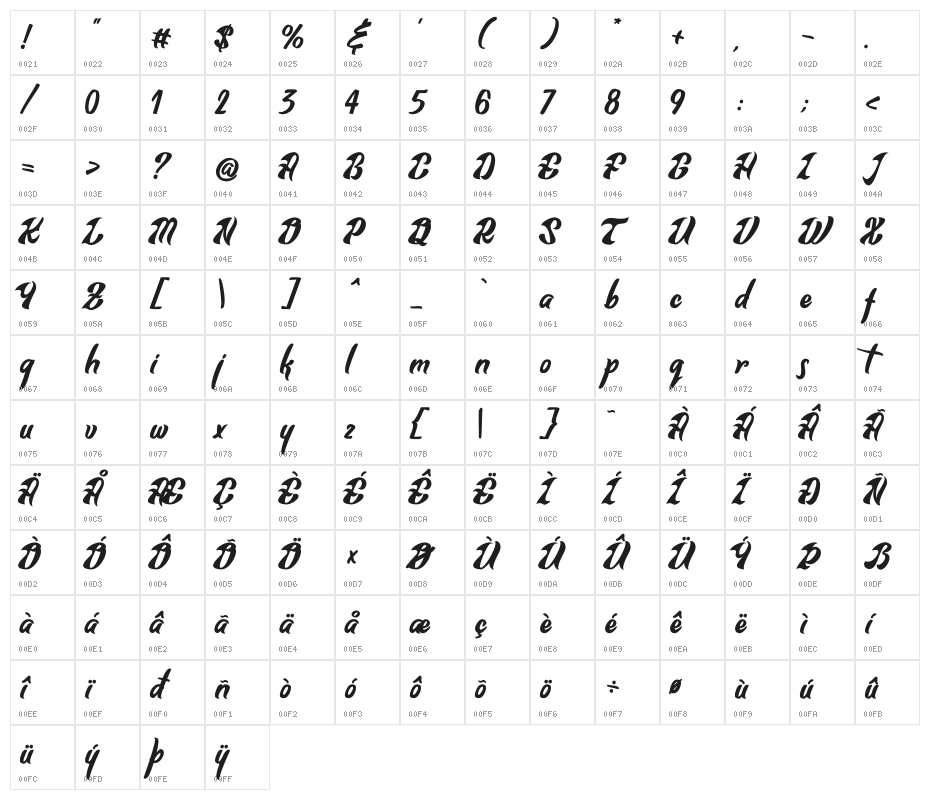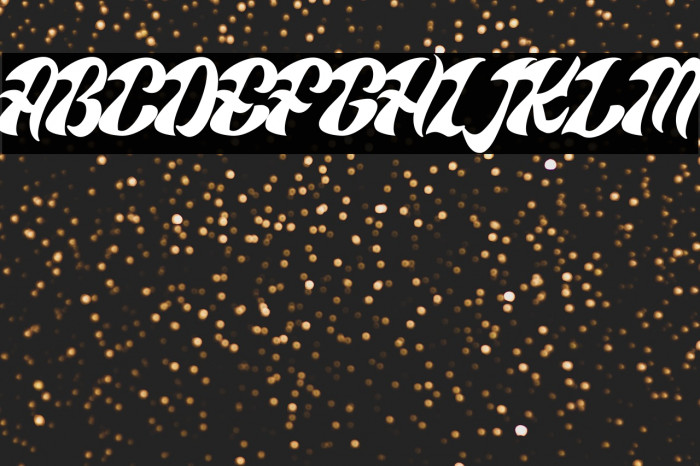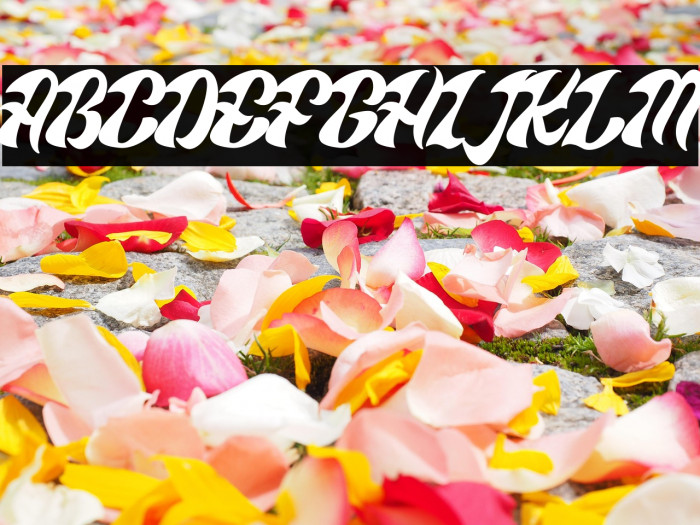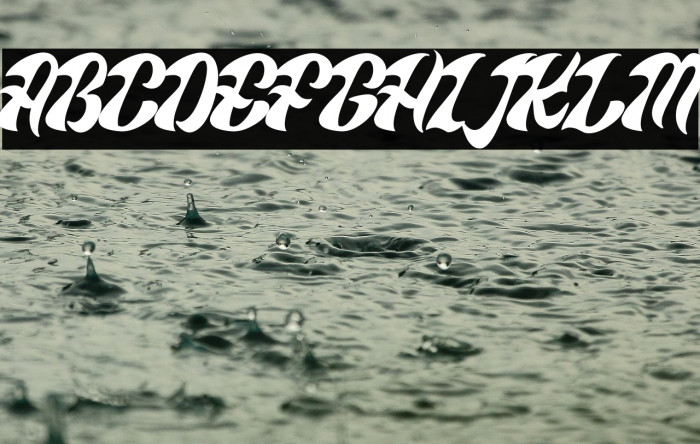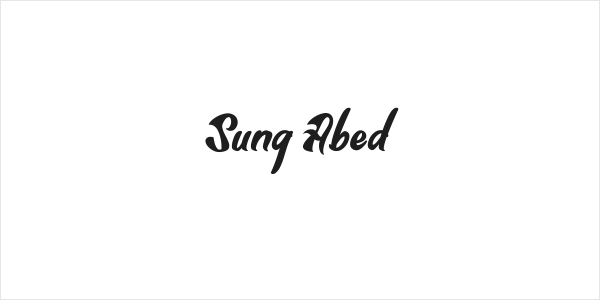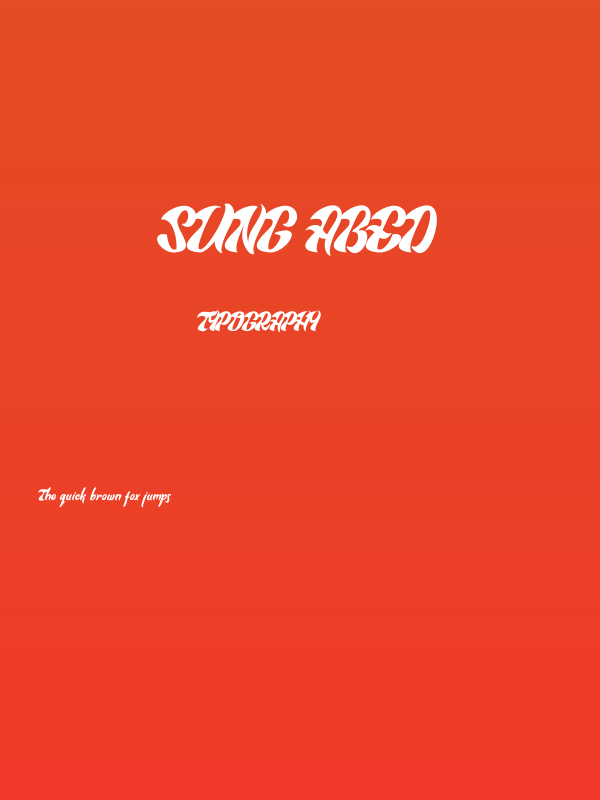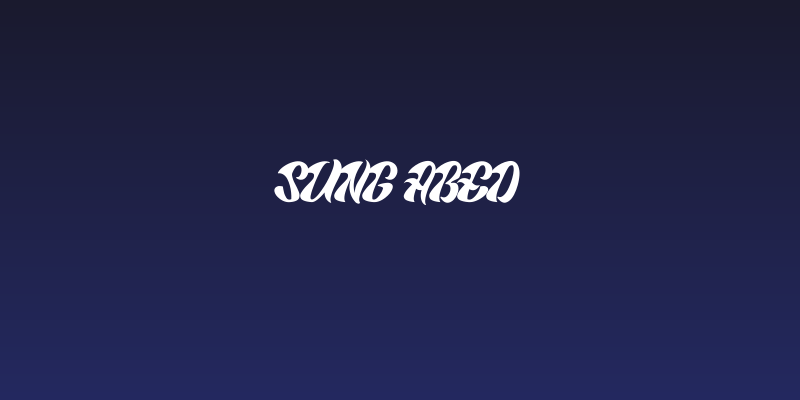
Sung Abed Font
Sung Abed Description
This font features a bold, cursive style with a strong emphasis on fluidity and movement. The characters are interconnected, creating a sense of continuity and flow. The uppercase letters are particularly striking, with exaggerated curves and flourishes that give them a dynamic and energetic appearance. The lowercase letters maintain the same fluidity, with a slightly more restrained design that ensures readability. The numbers and special characters are consistent with the overall style, featuring the same bold strokes and flowing lines. This font is ideal for projects that require a sense of elegance and dynamism.